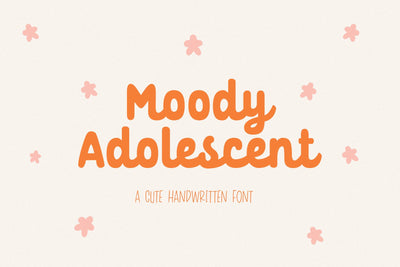
Moody Adolescent - a Cute Handwritten Font
Moody Adolescent is a cute handwritten font that has a rather neat and simple vibe. It will add an incredibly joyful touch to your designs. Add this beautiful display font to each of your creative ideas and notice how it makes them stand out!